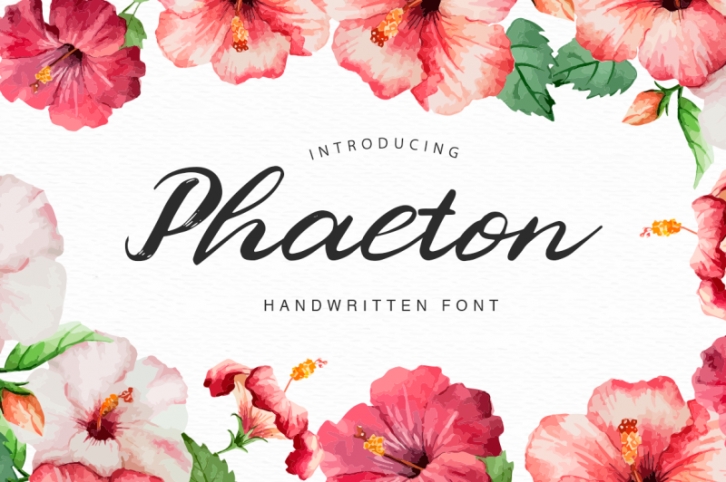
Phaeton Script It's handwritten script.
This font is ideal for branding and decorate your any project. This font are perfect for wedding invitation or your blog. Also with their help, you can create a logo or beautiful frame for your home. Or just use for your small business, book covers, stationery, marketing, magazines and more.